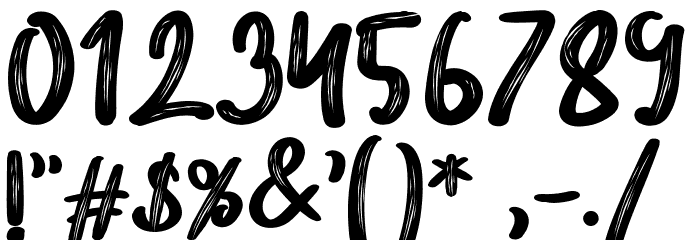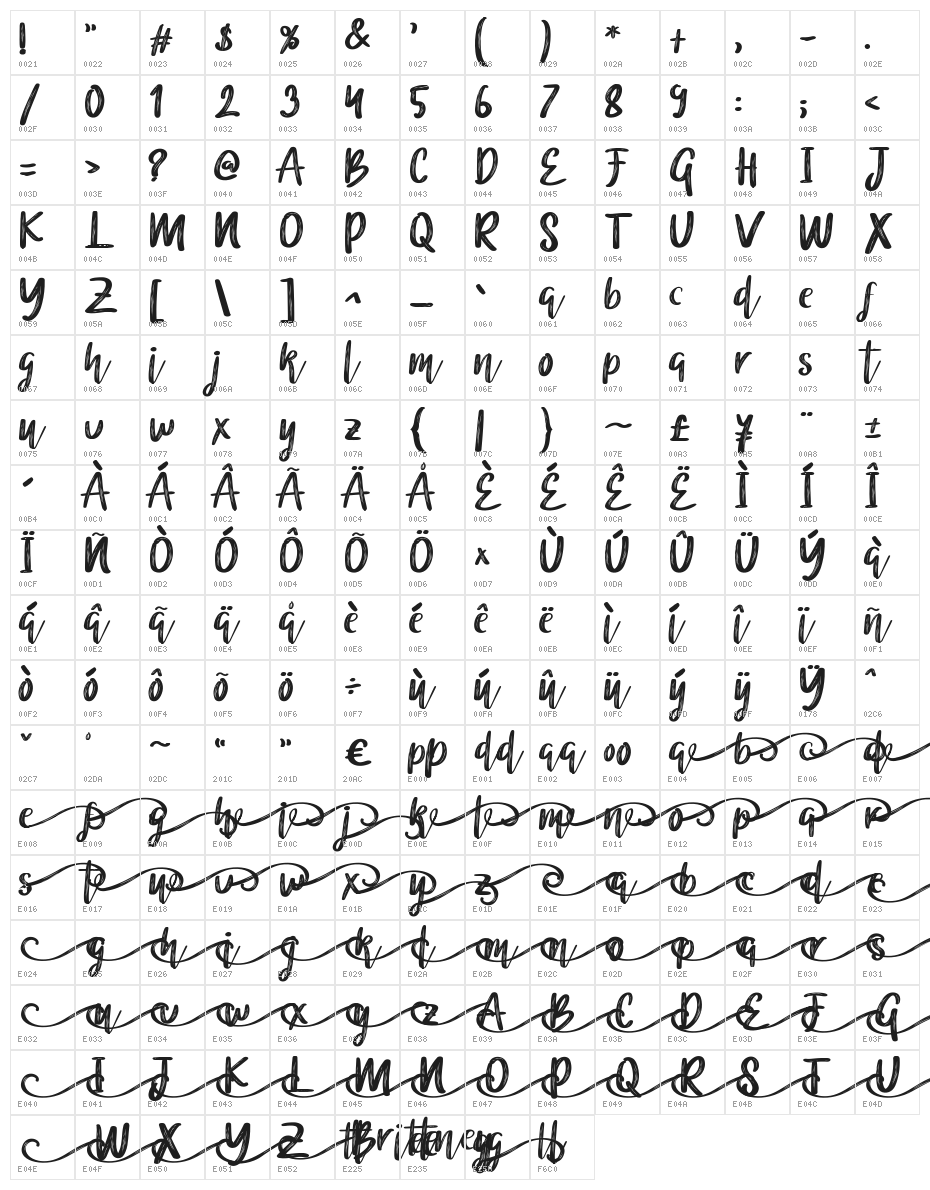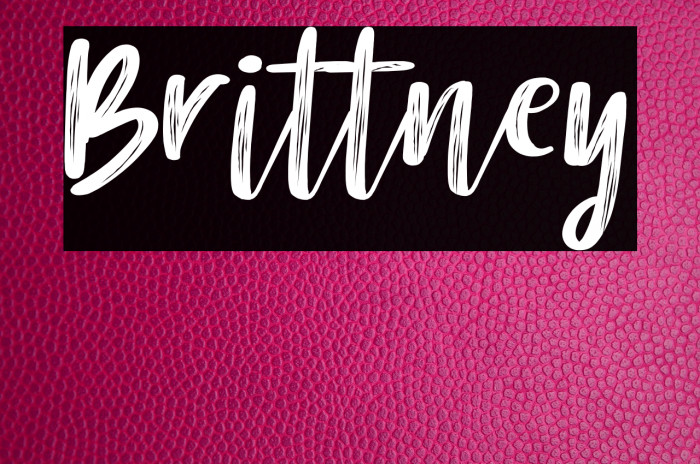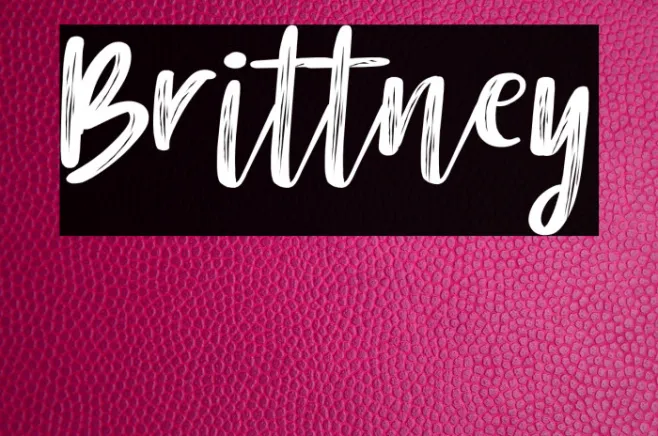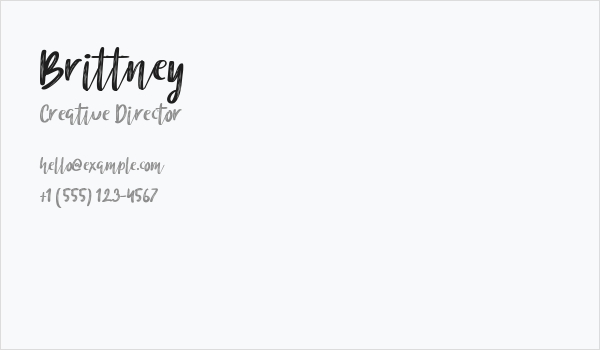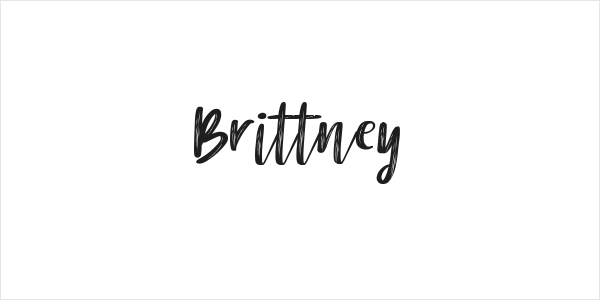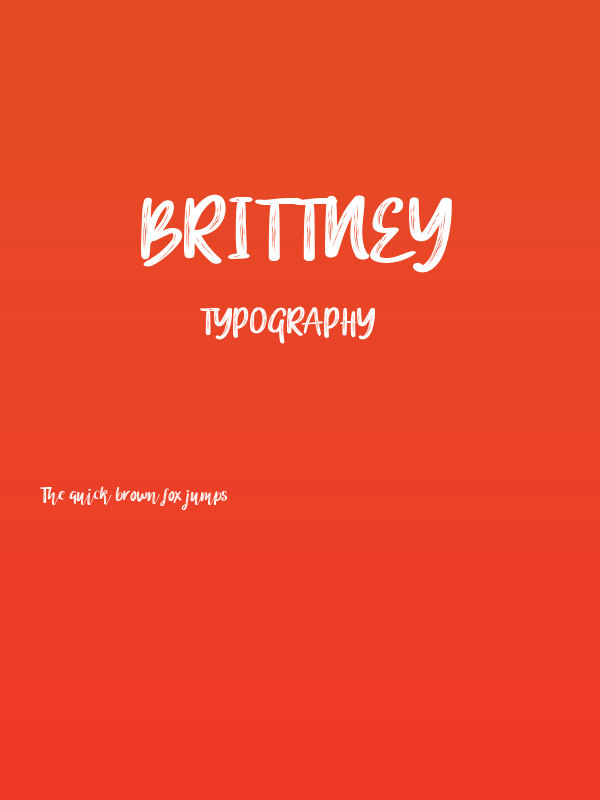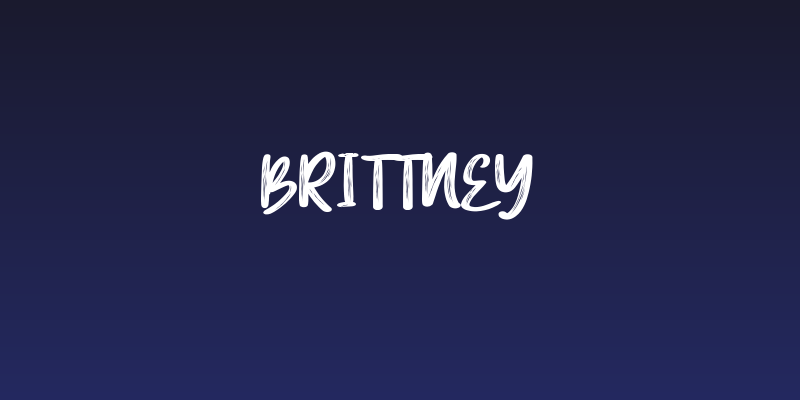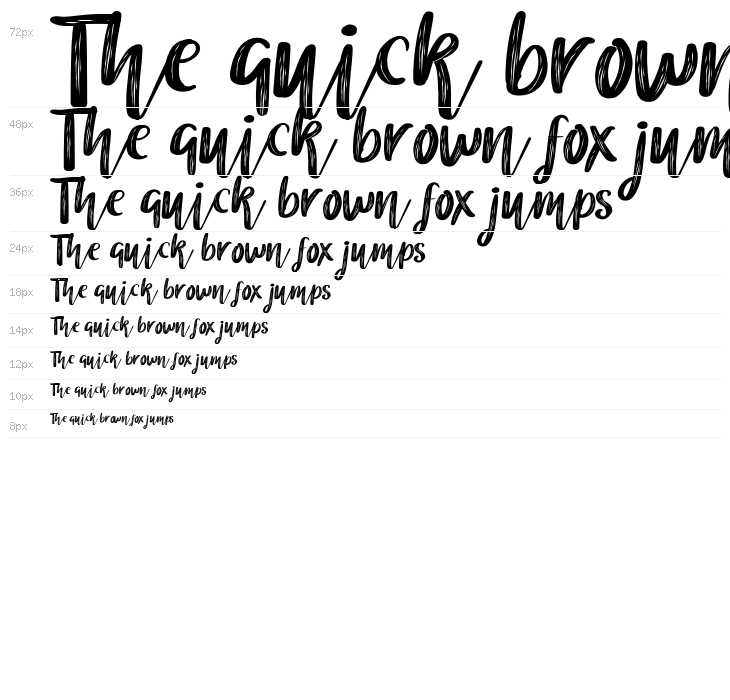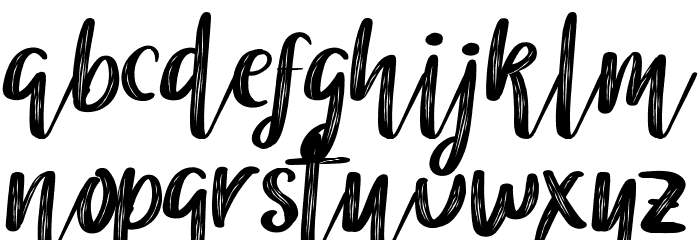
Brittney Font
Brittney Description
This font features a bold, handwritten style with a playful and energetic flair. The letters are characterized by thick strokes and a slightly slanted orientation, giving them a dynamic and lively appearance. The uppercase and lowercase letters maintain a consistent style, with rounded edges and a smooth flow. The numbers and special characters are equally expressive, complementing the overall aesthetic. This font is ideal for projects that require a personal touch or a sense of movement and creativity.
| Proposed Projects | Perfect for greeting cards, posters, social media graphics, and branding materials that aim to convey a personal or creative vibe. |